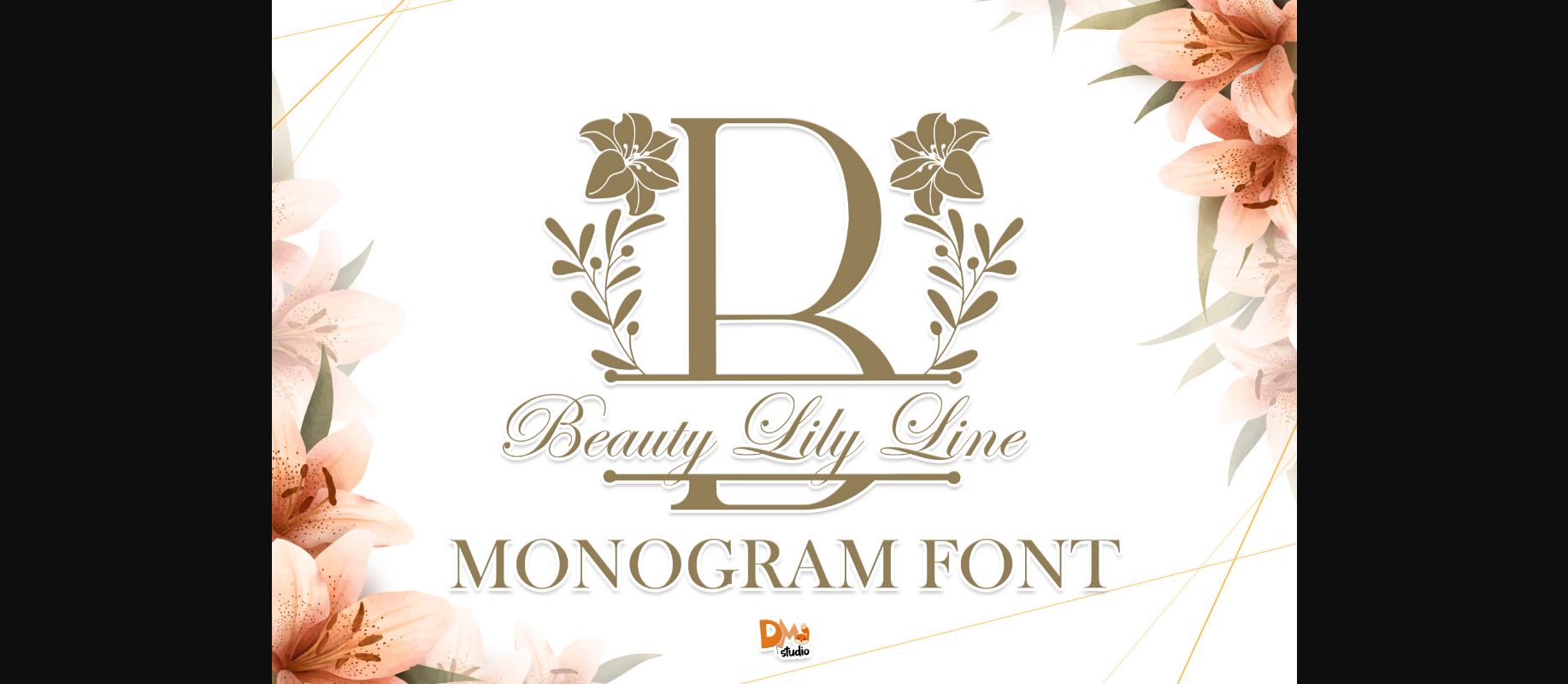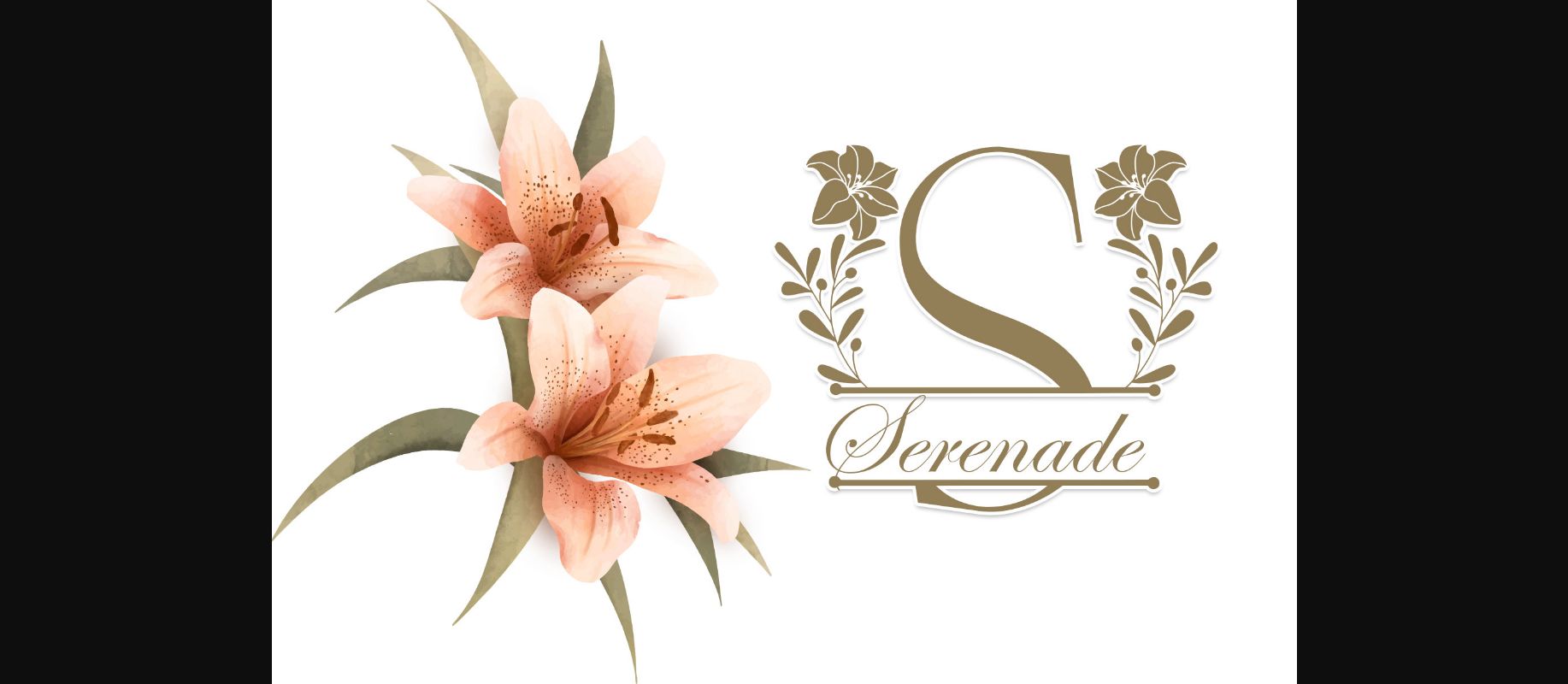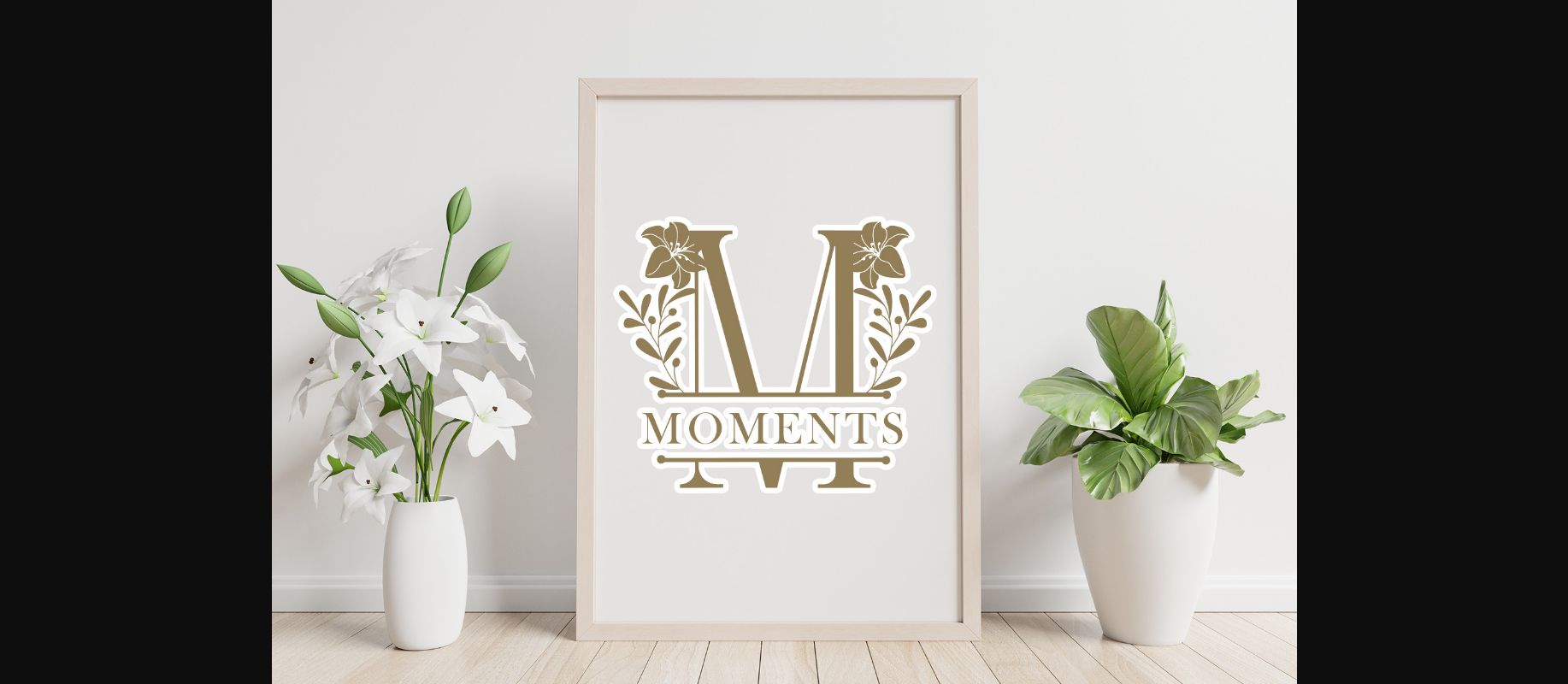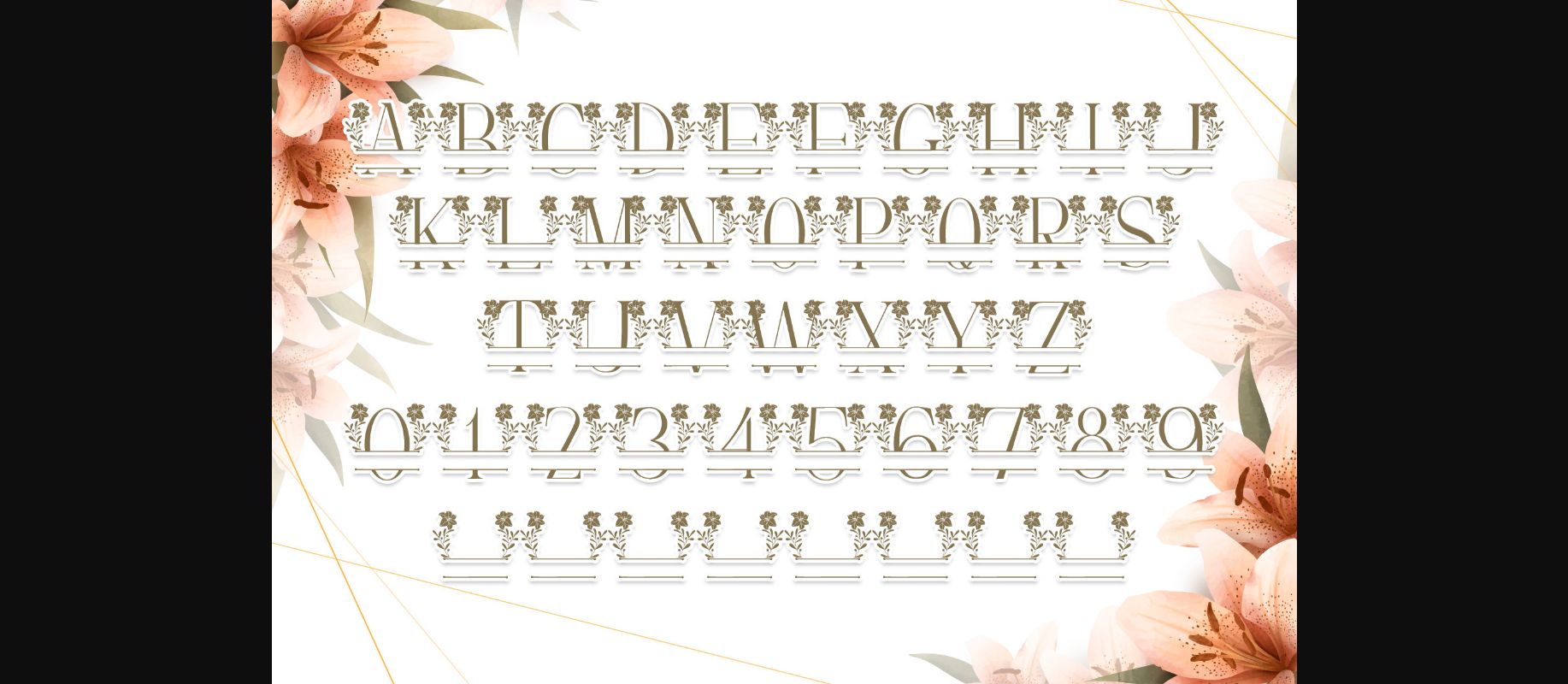
Beauty Lily Line Monogram Font
About Beauty Lily Line Monogram Font
Beauty Lily Line Monogram is a dainty and unique decorative font. Add this romantic and lovely looking font to each of your love letters, wedding invitations or favorite design ideas, and you will be astounded by the outcome.